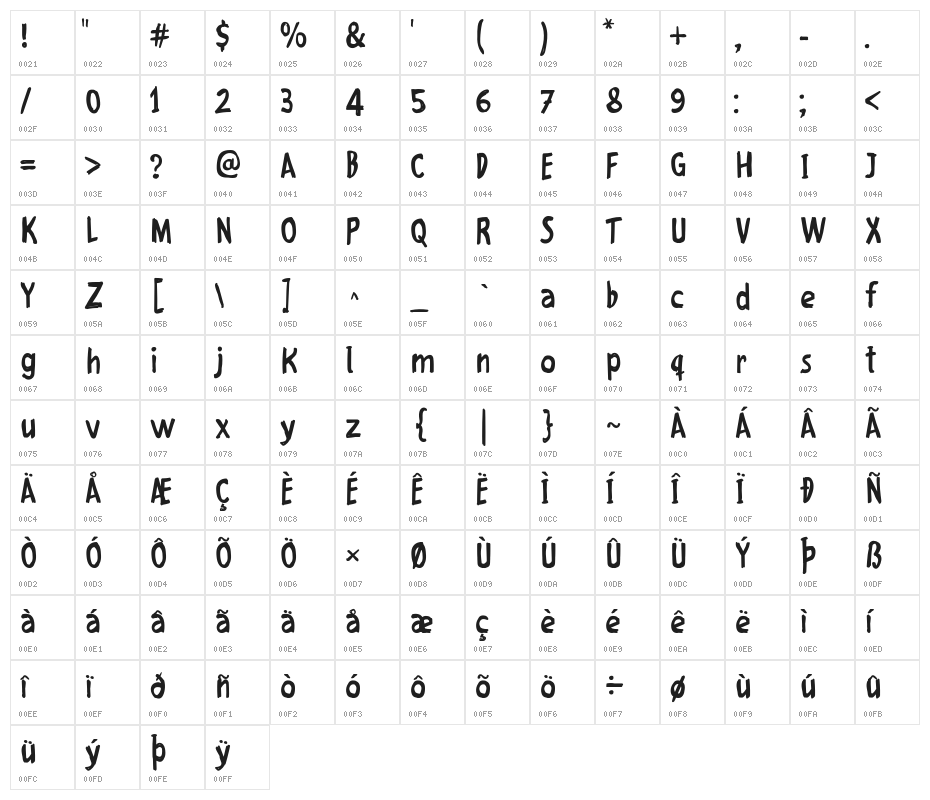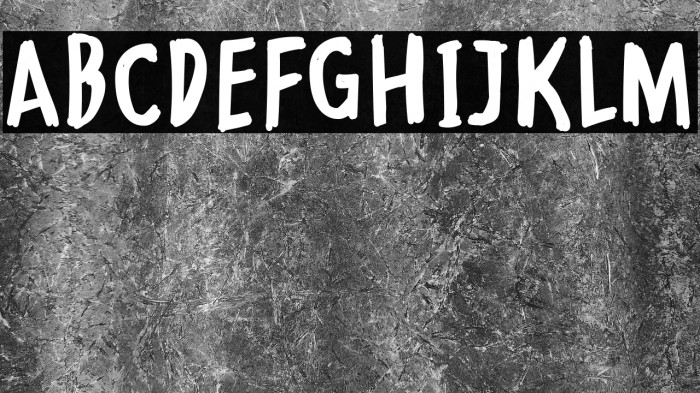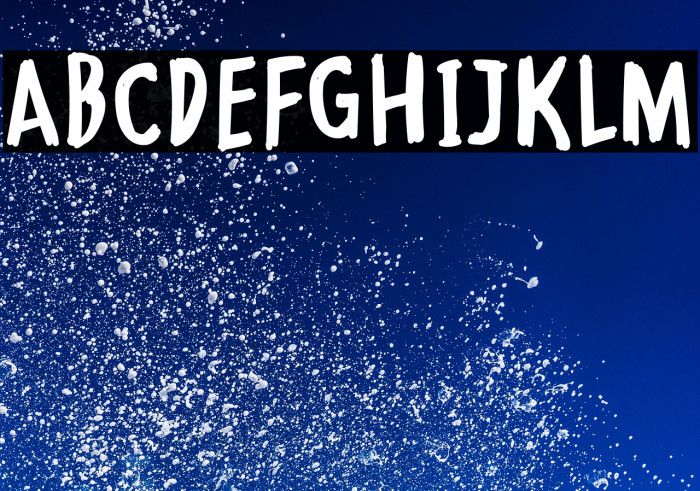
Handmade Memories Font
Handmade Memories Description
This font exudes a playful and handcrafted charm, characterized by its irregular and organic letterforms that mimic the look of hand-drawn text. The strokes are bold and slightly uneven, giving each character a unique personality while maintaining legibility. The uppercase and lowercase letters are well-balanced, and the numbers and special characters follow the same whimsical style. This font is perfect for projects that require a personal touch, such as invitations, greeting cards, or creative branding materials. Its informal and friendly appearance makes it ideal for conveying warmth and approachability.
| Proposed Projects | Ideal for invitations, greeting cards, creative branding, and any project needing a personal touch. |